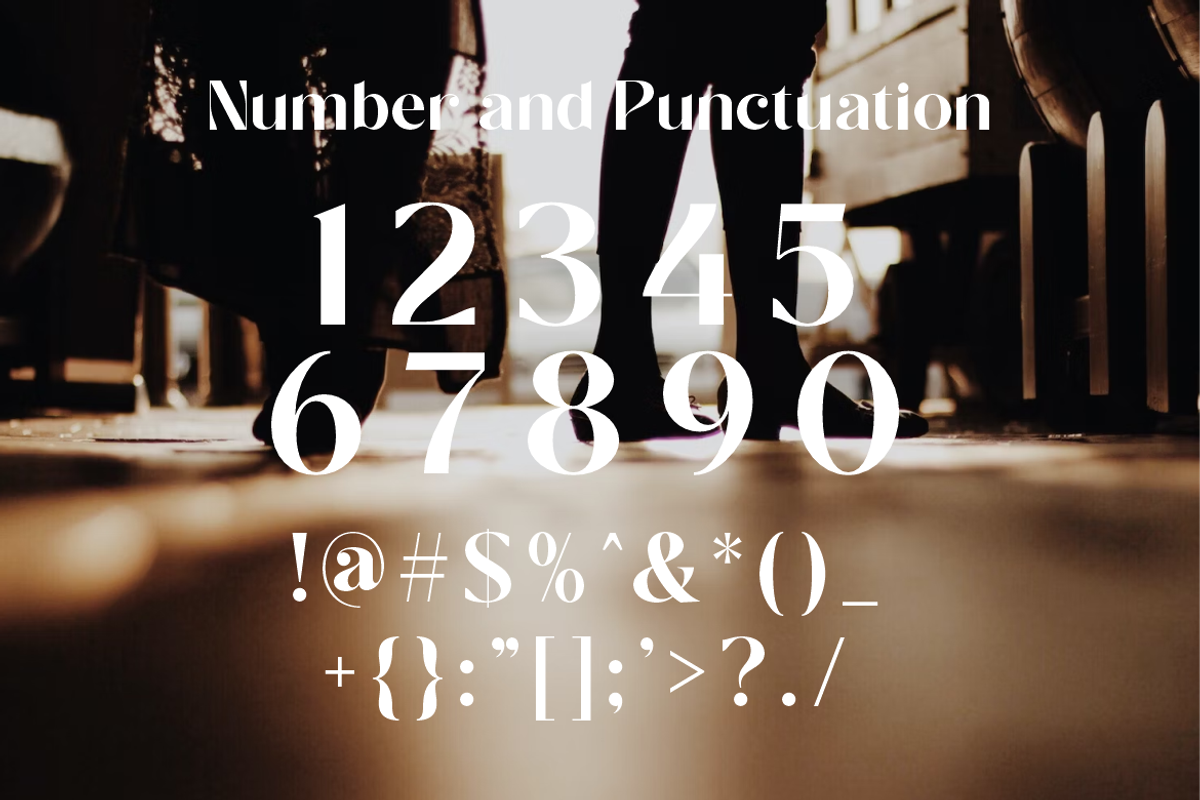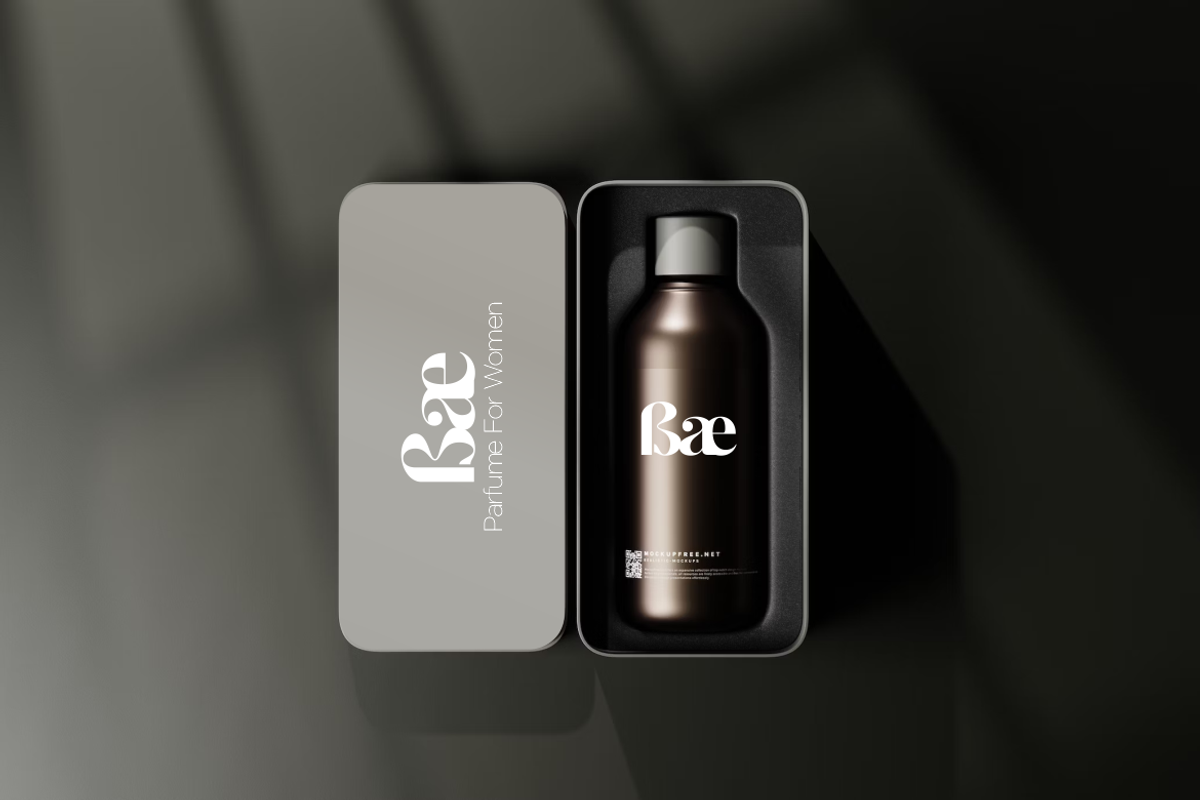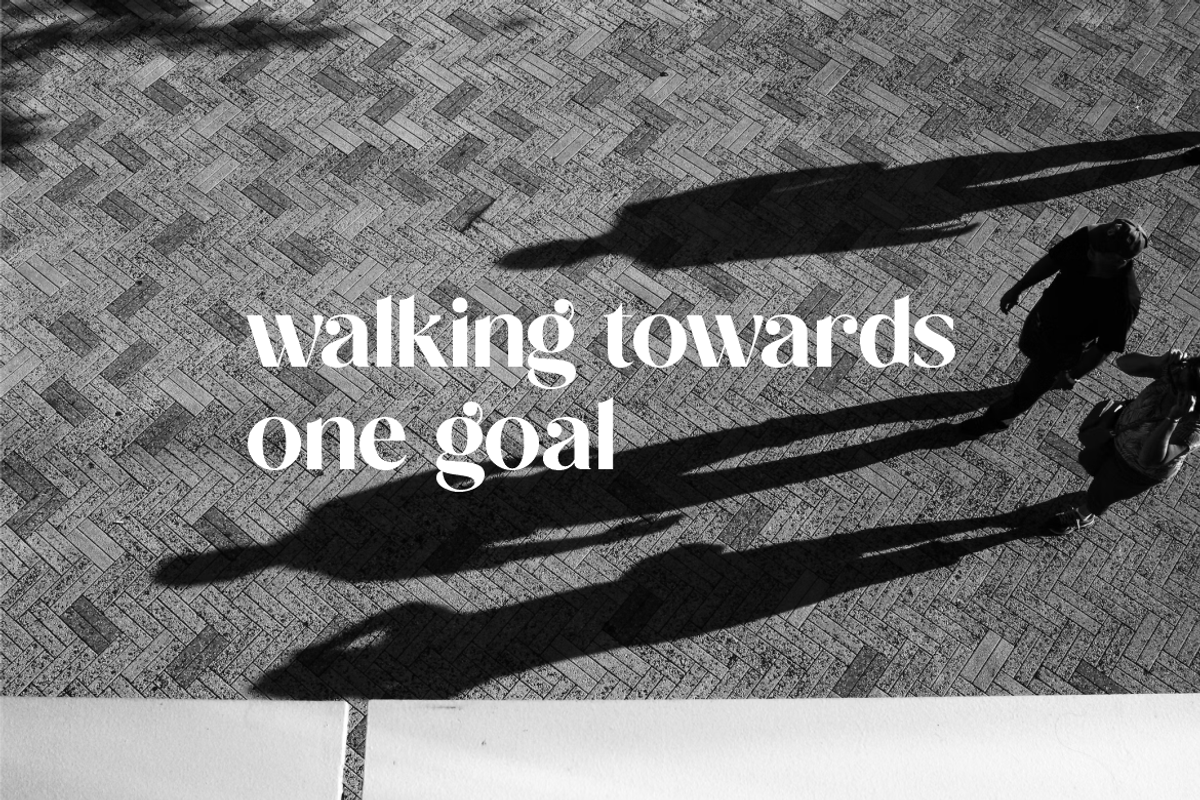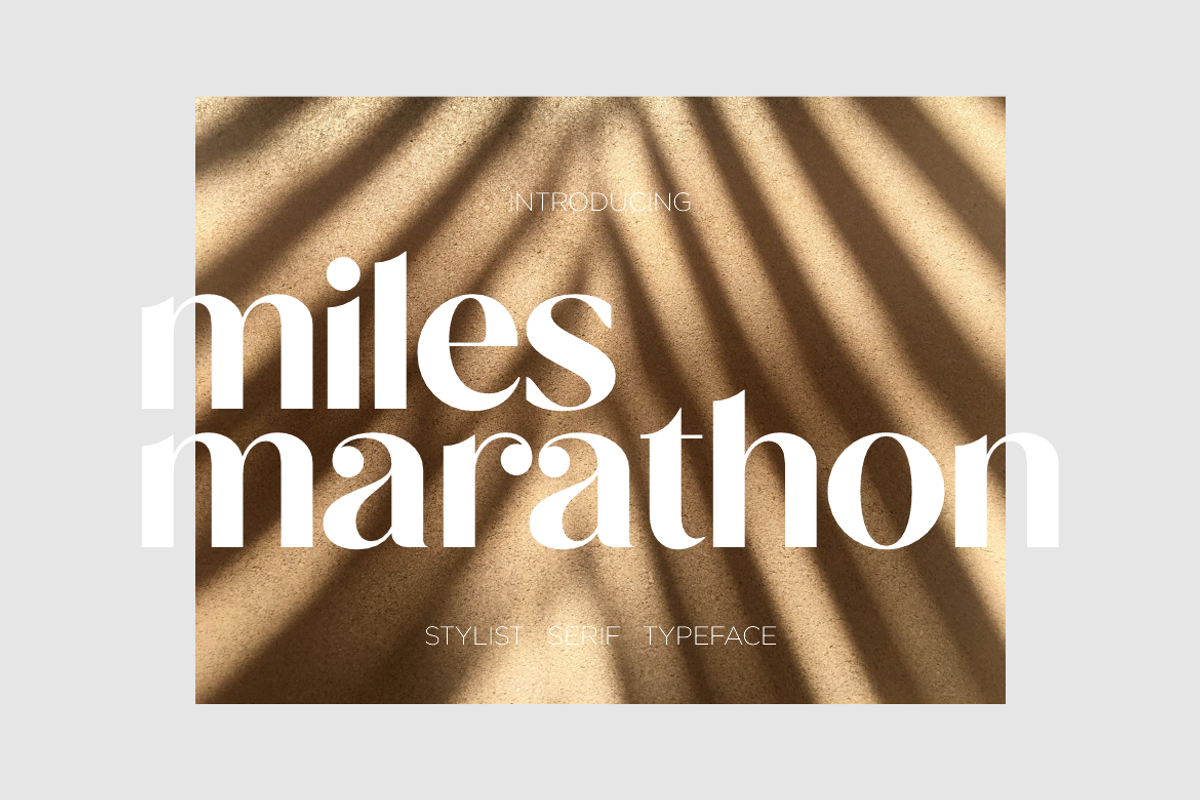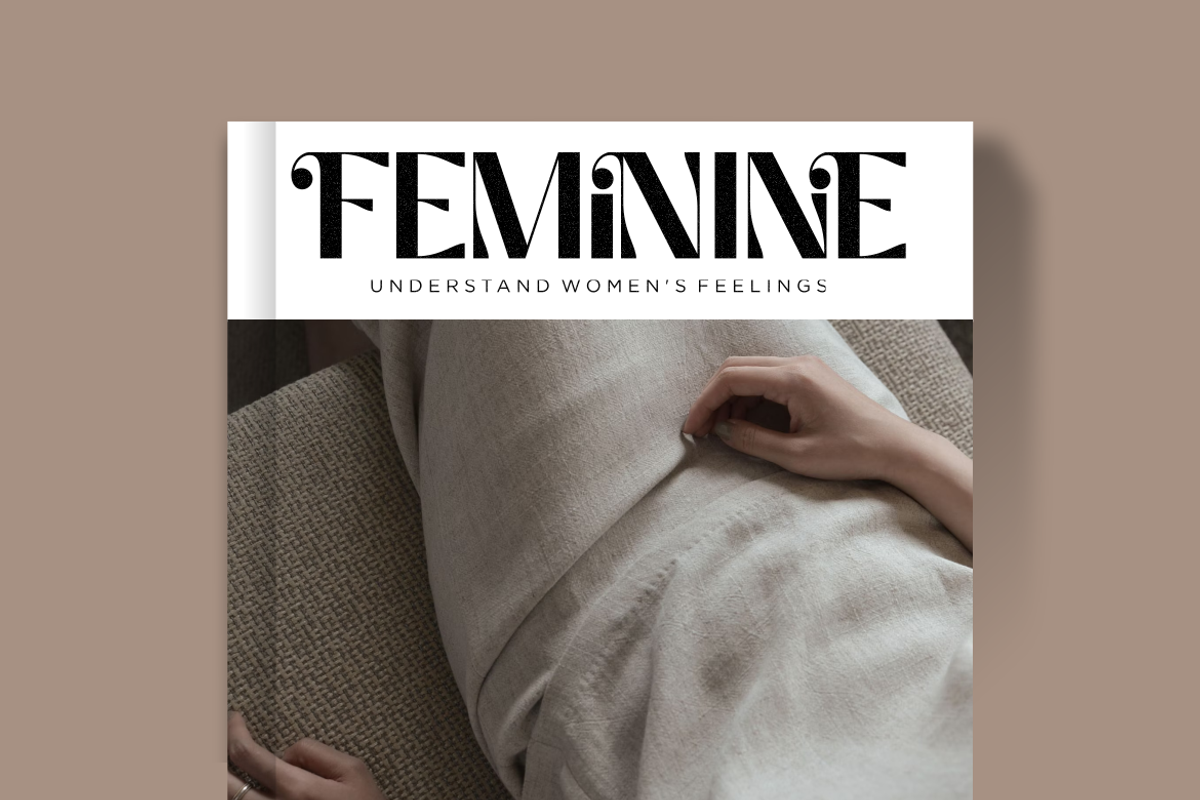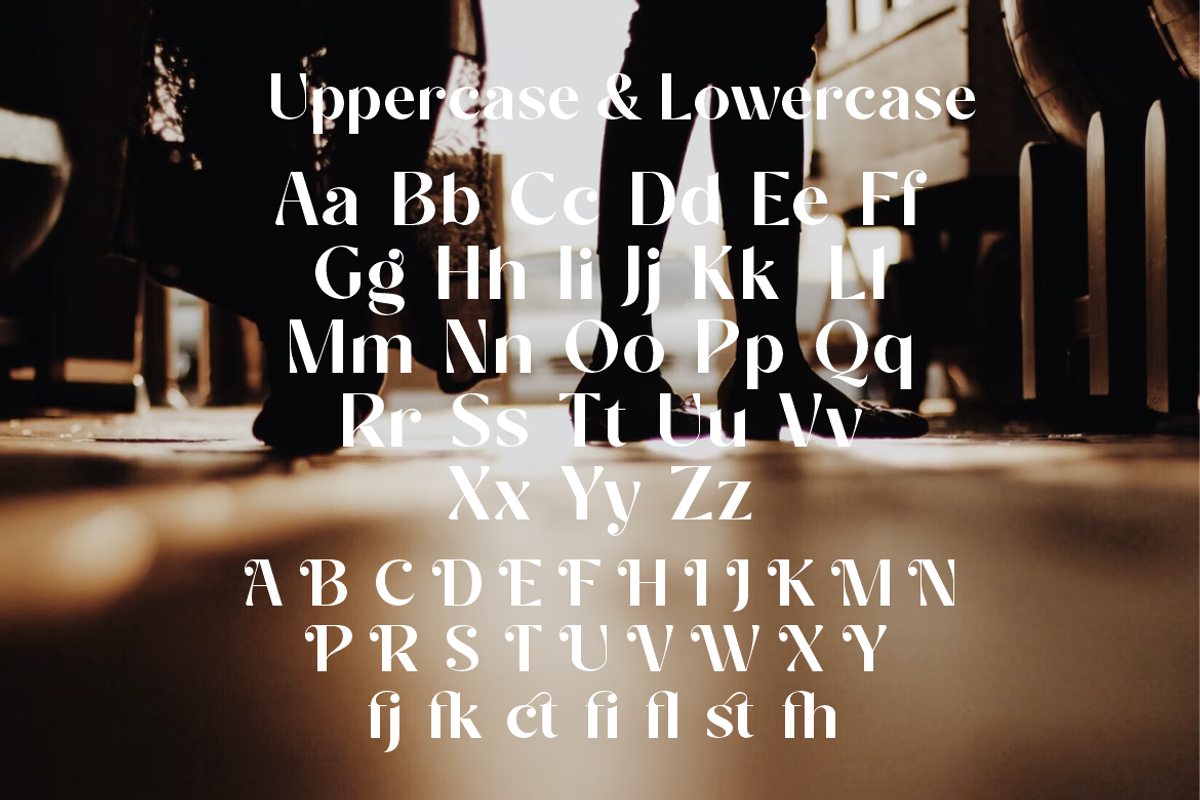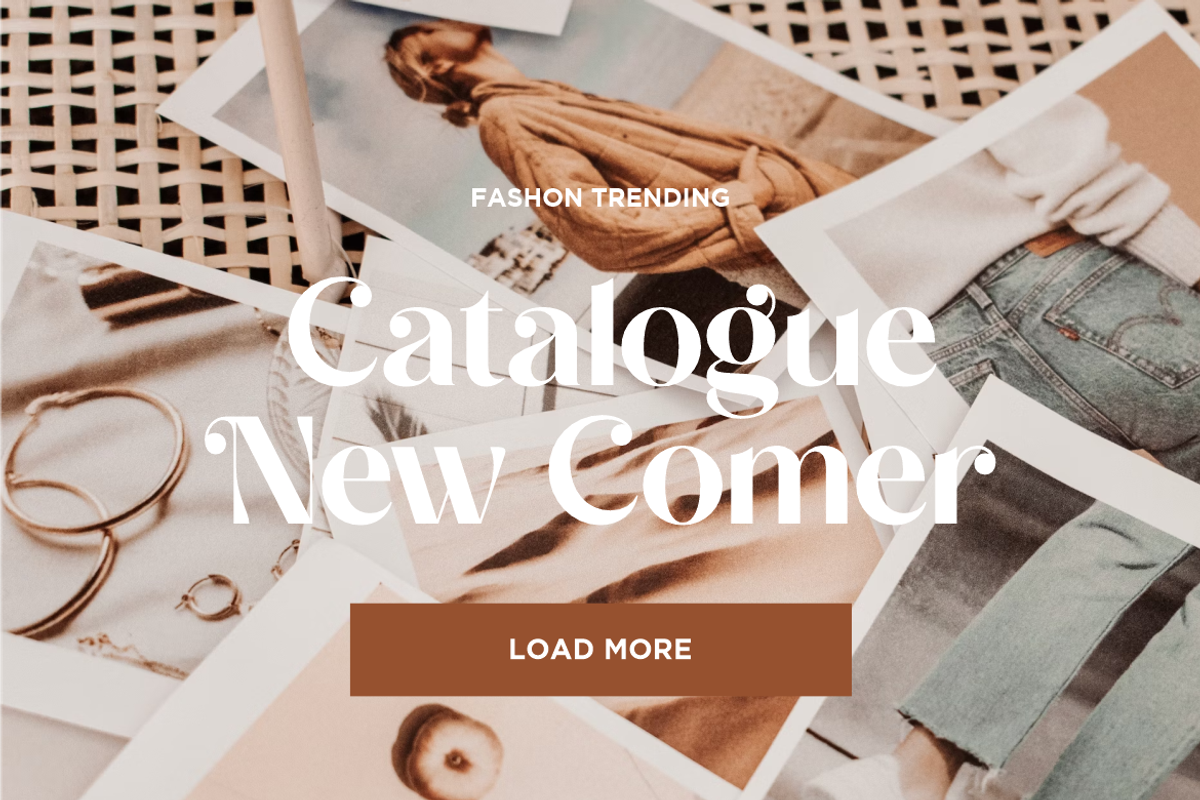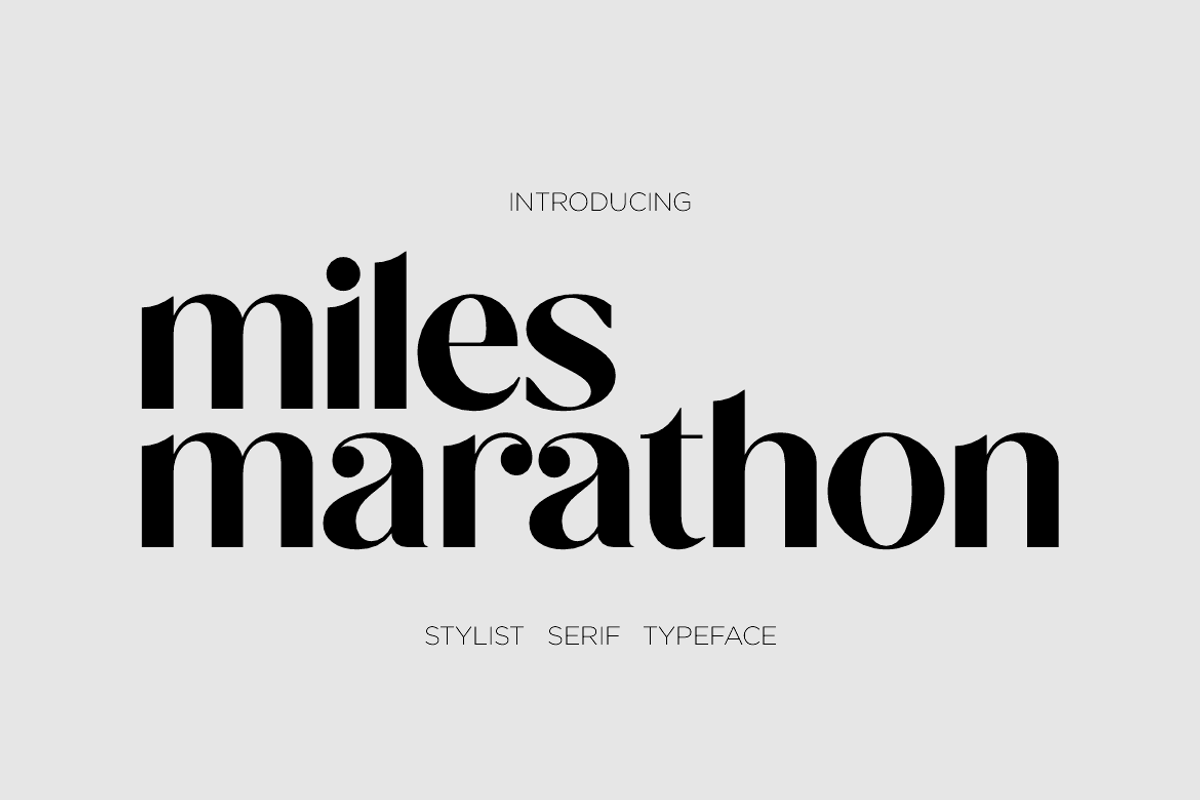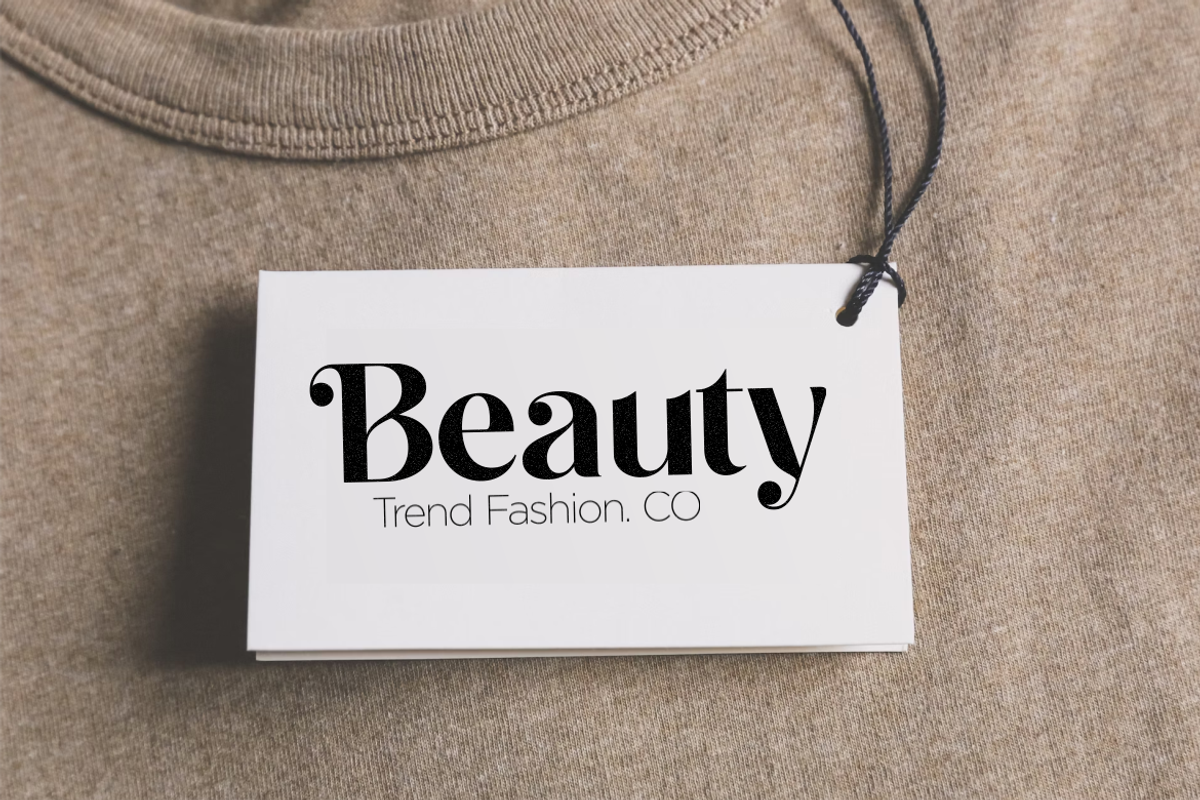
Miles Marathon
Say hello to "Miles Marathon" - A flirtatiously charming 80's retro-inspired typeface with wonderful versatility given it includes 70 fonts. 2 Handy variable fonts are also included for those who have Adobe Photoshop/Illustrator CC 2020 and up :)
Inspired by magazine adverts from the 70'sand 80's - this family fits right in with bringing retro back into the 21st century. Super-versatile - have a scroll through all the previews to see the very wide range of variety that Eighties Comeback can manifest the possibilities are really quite endless :)